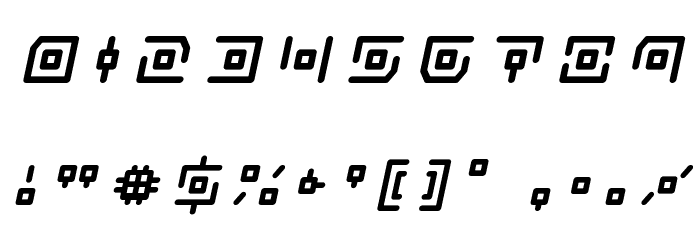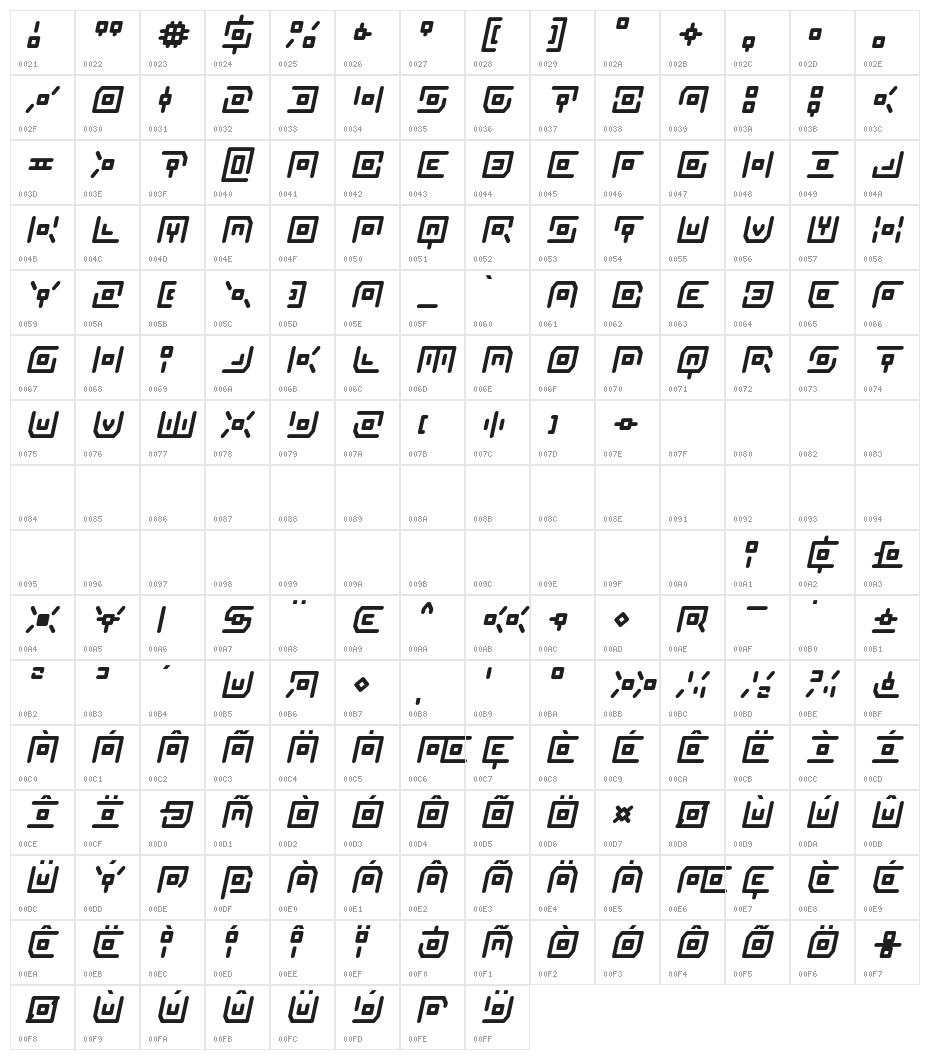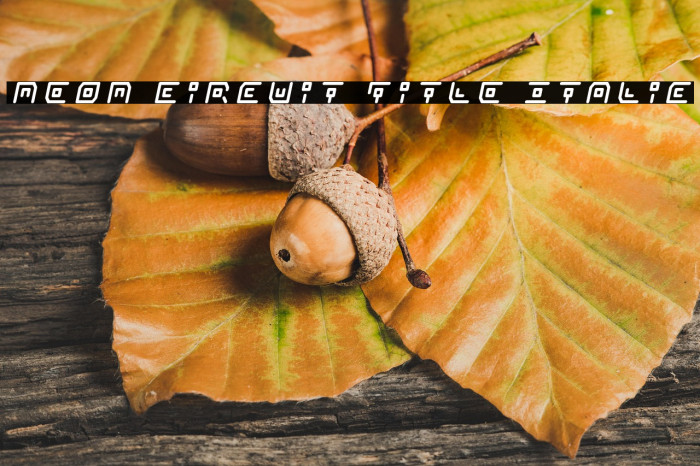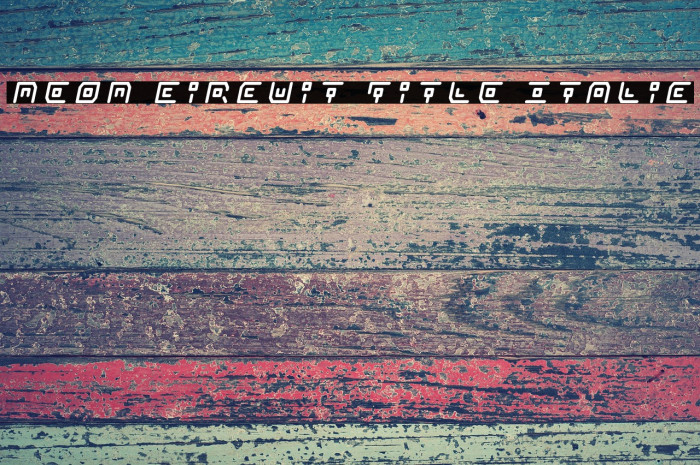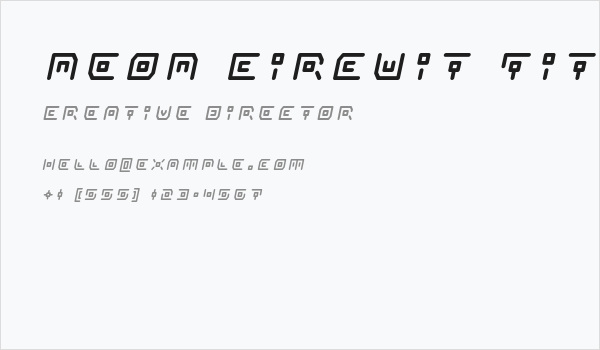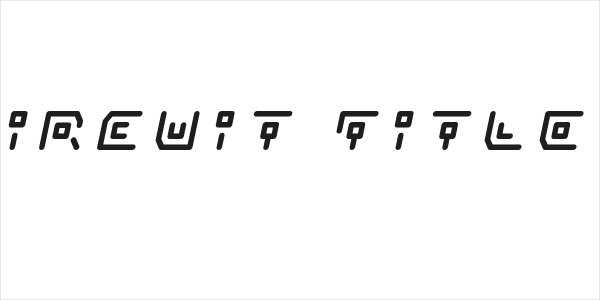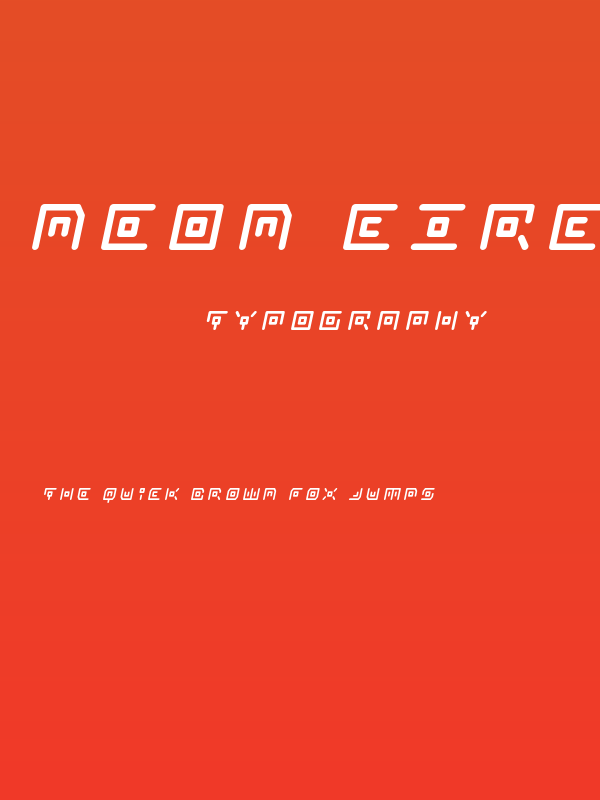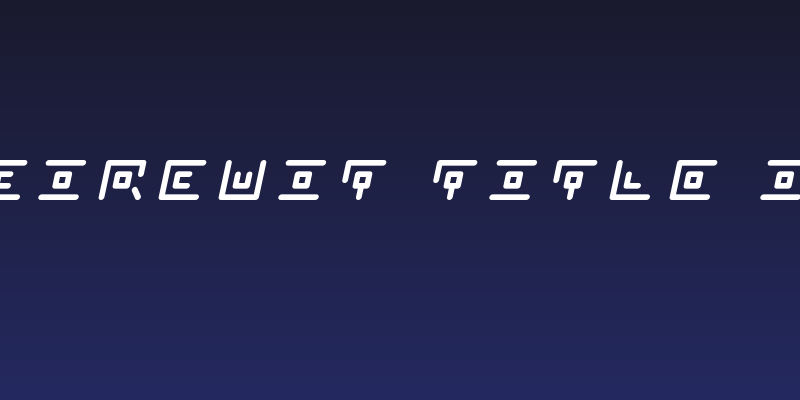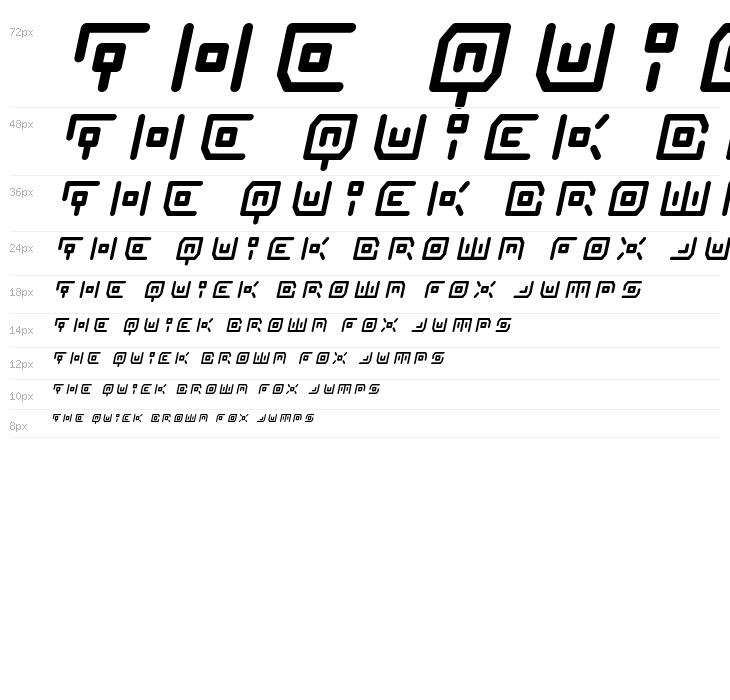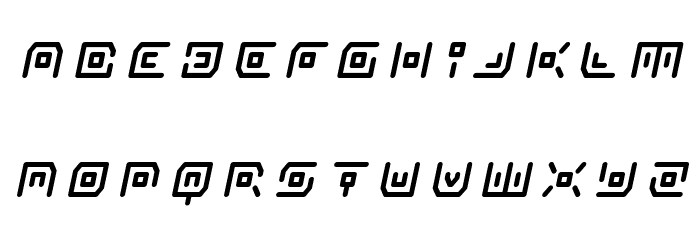
Neon Circuit Title Italic Font
Neon Circuit Title Italic Description
This font features a futuristic and digital aesthetic, reminiscent of circuit patterns and neon lights. The characters are composed of geometric shapes with sharp angles and distinct corners, giving it a technological and modern feel. The design includes a consistent use of line thickness, creating a uniform appearance across all characters. The italic style adds a dynamic and forward-leaning aspect, enhancing its contemporary look. The font is highly stylized, making it suitable for projects that require a unique and eye-catching typeface.
| Proposed Projects | Ideal for tech-related branding, sci-fi movie posters, video game titles, and digital art projects. |